16 Best Handwritten Script Fonts for Creative Designs in 2026
Handwritten script fonts help designers build logos, packaging, invitations, quotes, and social graphics with a natural drawn look. This collection focuses on display-ready scripts with rounded, elegant, romantic, textured, and signature-style details, so you can quickly choose the right font for branding or creative projects.
Bold & Rounded Handwritten Script Fonts
These thicker, softer scripts use rounded curves and strong strokes for readable logos, packaging, quotes, and social graphics that need a friendly display look.
Sunny Font
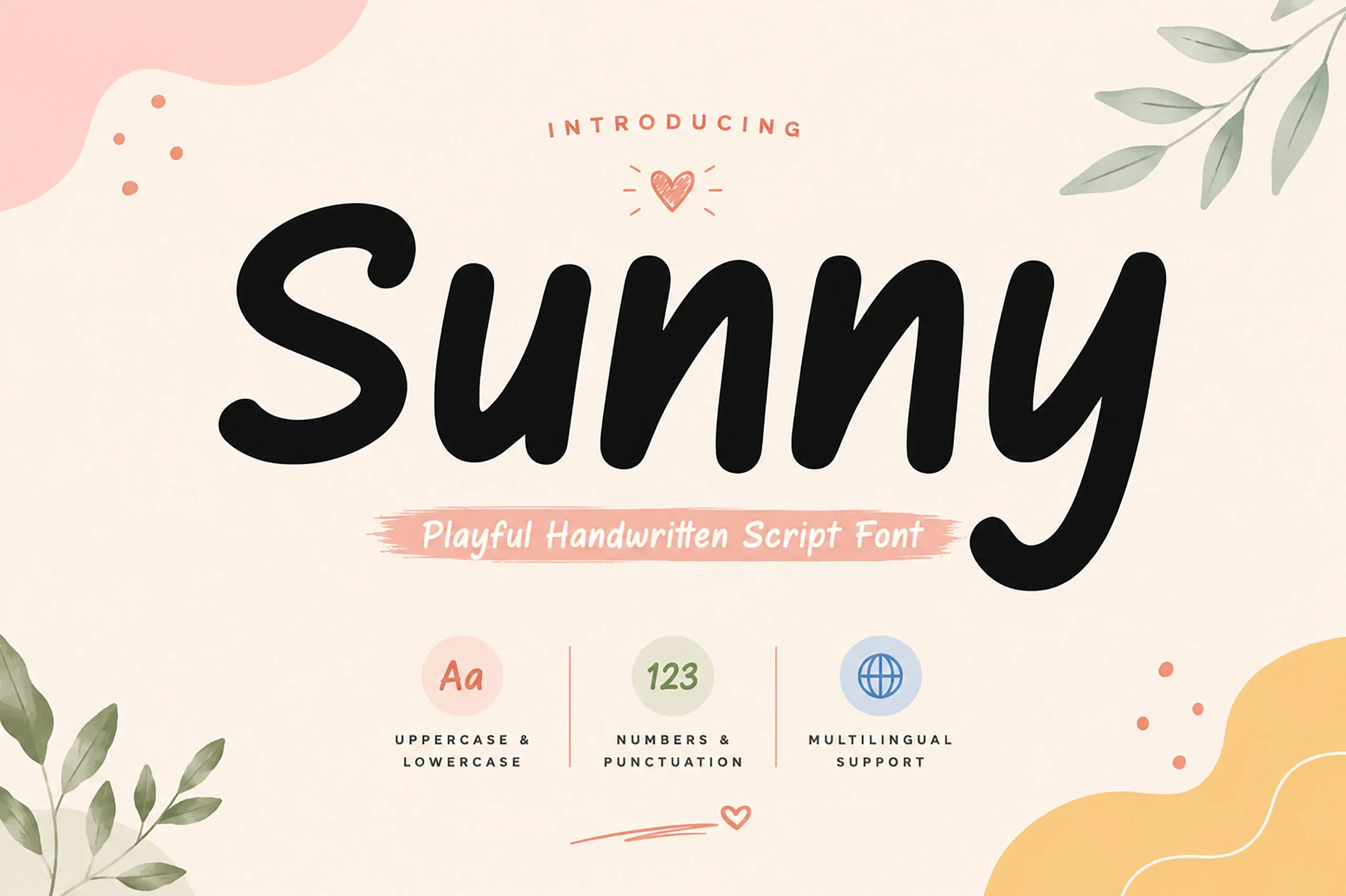
Best For: logos, packaging, social media graphics, quotes
Sunny Font has a thick, rounded script style with a casual bounce through the letters. The oversized curves, soft terminals, and connected handwritten rhythm keep it friendly without looking scratchy or fragile.
For Handwritten Script Fonts used in packaging, quotes, or social graphics, Sunny works best when the word count stays short and the spacing around it stays open. Its heavy strokes need contrast and clear title hierarchy so the cheerful shape does not turn crowded.
Coconut Bay Font
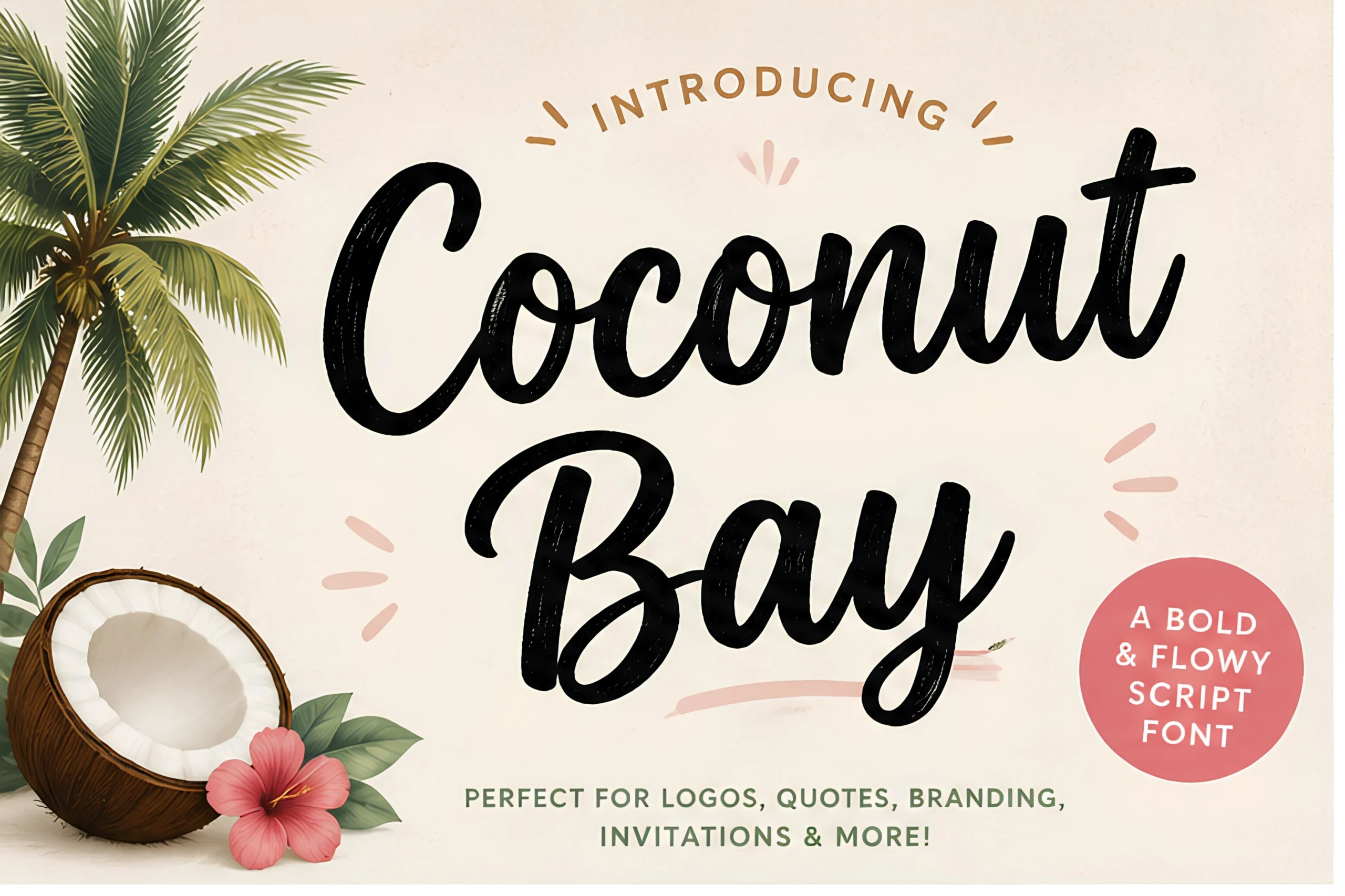
Best For: logos, quotes, branding, invitations
Coconut Bay Font uses a heavy handwritten brush style with rounded curves, thick downstrokes, and a slightly worn texture inside the letters. The connected forms feel relaxed and summery, while the oversized capitals give short titles a strong tropical sign-painting presence.
As part of Handwritten Script Fonts for logos, quotes, and invitation graphics, Coconut Bay works best with generous spacing around the wordmark and a simple supporting typeface. Its bold flow needs clear contrast; avoid tight layouts where the brush joins and descenders compete for space.
Roses Font
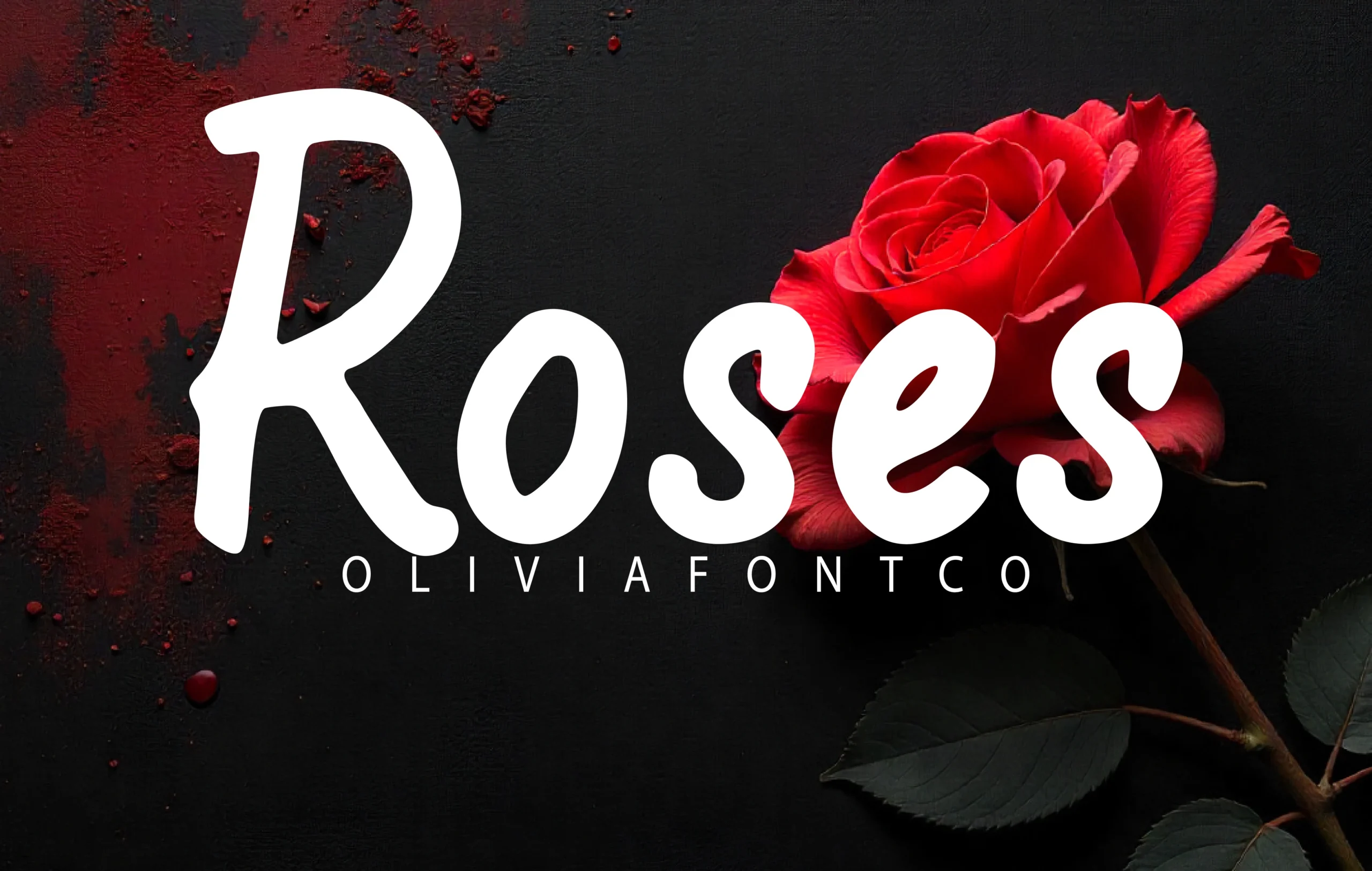
Best For: logos, invitations, romantic designs, bold designs
Roses Font carries a heavy handwritten script shape with a tall open R, rounded bowls, and thick smooth curves that feel confident rather than delicate. The soft swelling strokes give the word a romantic presence, while the blunt terminals keep it bold and easy to spot.
For Handwritten Script Fonts used in logos, invitations, or dramatic product labels, Roses works best with high contrast and short wording. Its weight is strong enough for display text, but tight spacing can flatten the counters, so give the letters enough room to hold their shape.
Daily Calm Font
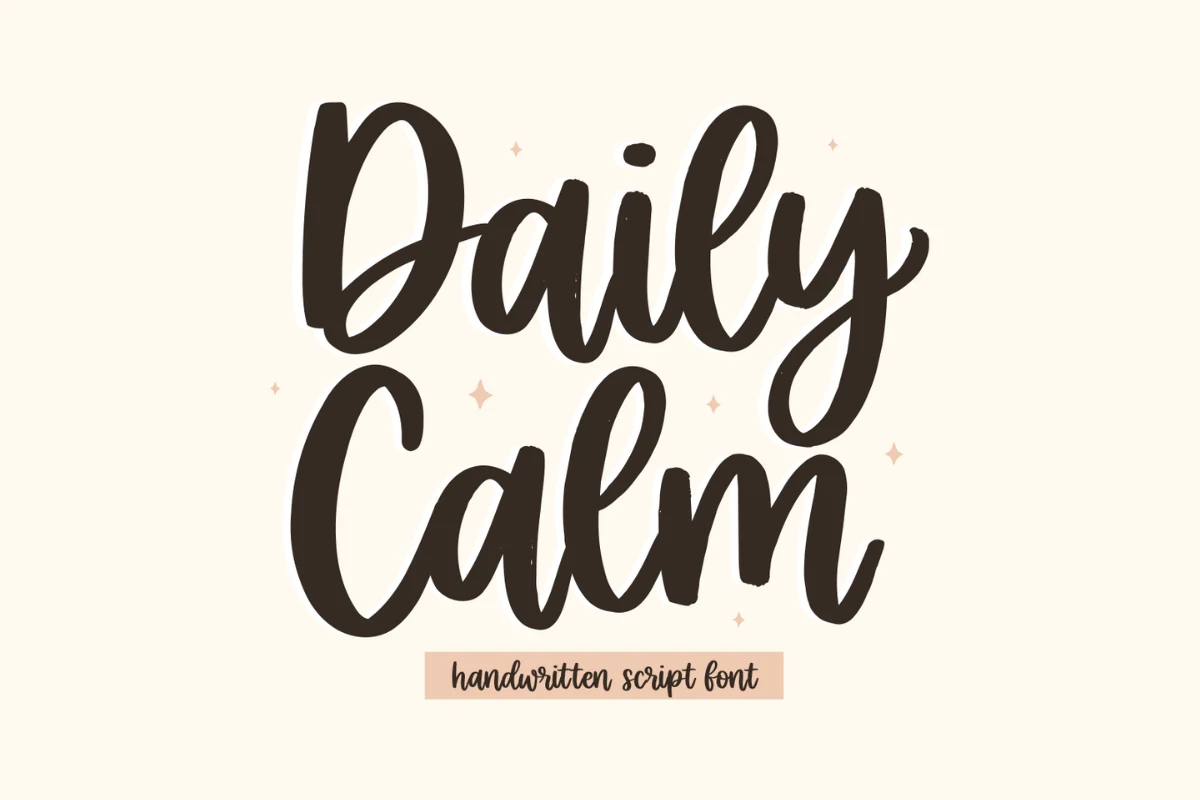
Best For: logos, social media graphics, quotes, casual designs
Daily Calm Font has a thick, rounded handwritten script style with soft curves, open counters, and a relaxed bounce between letters. The strokes feel smooth and friendly, while the tall capitals and looped descenders give short phrases a clear display rhythm.
For Handwritten Script Fonts used in quotes, social posts, or casual logo work, Daily Calm benefits from generous line spacing and clean contrast. Its heavy forms stay readable at display size, but compact layouts can make the rounded joins feel crowded.
Santiago Font
Best For: logos, product labels, social media graphics, wedding designs
Santiago has a broad brush-script build with a tall looped capital, rounded joins, and thick-to-thin pressure that stays soft rather than scratchy. The appeal of Handwritten Script Fonts is clear in its connected rhythm: the letters feel written in one motion, but the large bowls and open counters keep the word readable at display size.
Use it where the name or headline should carry the composition—logos, labels, wedding stationery, packaging marks, and social posts. Its long entry strokes and descending g need margin space, so avoid crowding it against borders; pair it with small, quiet serif or sans text to keep hierarchy clean.
Elegant & Romantic Handwritten Script Fonts
These graceful scripts lean on loops, smooth joins, and romantic details for wedding stationery, beauty branding, premium labels, and refined short headings.
Orchidia Font
Best For: logos, invitations, beauty branding, product labels
Orchidia Font has a polished handwritten flow with a dramatic looped capital O, tall upright stems, and smooth rounded exits. The letters connect cleanly, giving the wordmark a romantic rhythm without the scratchy texture of casual handwriting.
For Handwritten Script Fonts used in wedding invites, beauty packaging, or signature logos, Orchidia needs clear contrast and restrained tracking. Keep it to names, headings, and short phrases; the oversized initial loop and narrow joins lose definition when crowded.
Adinda Font
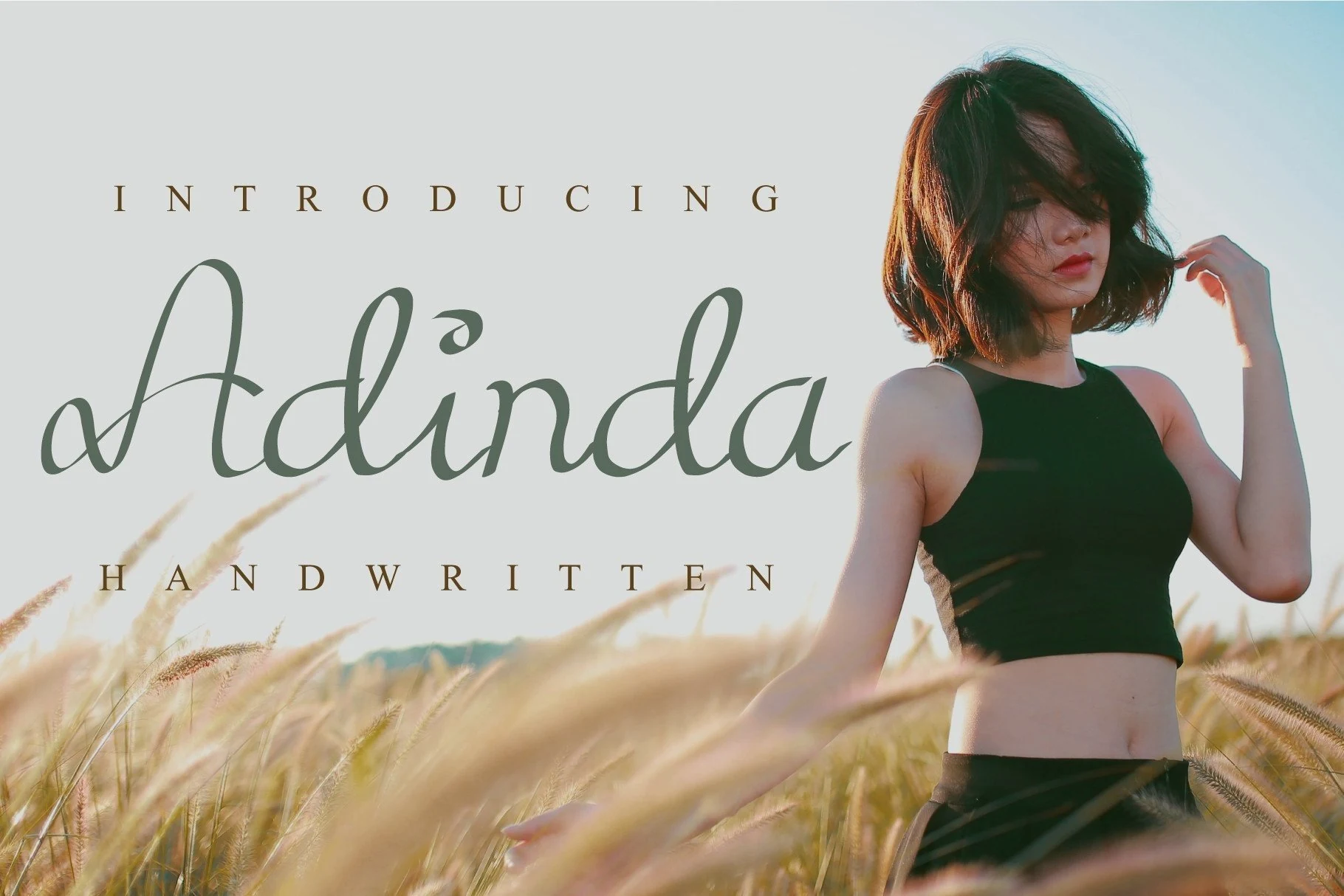
Best For: logos, personal branding, feminine designs, creative projects
Adinda Font has a slim handwritten script structure with tall loops, long entry strokes, and a calm, even rhythm through the connected lowercase. The letterforms feel light and graceful, with enough curve variation to avoid looking rigid or overly formal.
Handwritten Script Fonts like Adinda need open spacing and clear contrast, especially where the thin joins cross into tall ascenders. Its Photoshop and Silhouette design studio compatibility helps with craft-based layouts, but the lettering works best as a name, logo, or short display phrase rather than dense text.
Dear Love Font
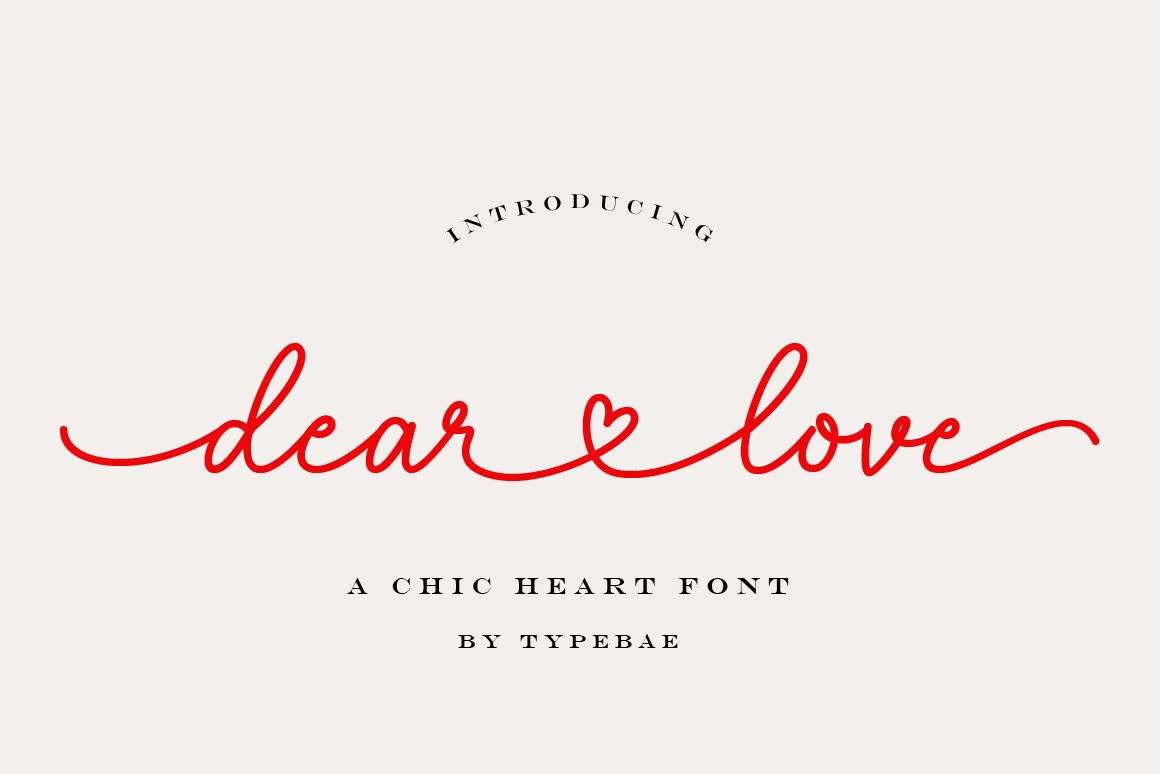
Best For: romantic designs, wedding designs, invitations, logos
Dear Love Font uses a fine handwritten line with long entry and exit tails, rounded loops, and a heart-shaped connection between the words. The lettering is light and romantic, with a continuous baseline that makes short phrases feel like one drawn gesture.
For Handwritten Script Fonts in wedding stationery, love-themed logos, or invitation headers, Dear Love needs open horizontal space so the swashes and heart detail stay readable. Pair it with quiet serif text and keep the main wording brief to avoid tangling the thin strokes.
Shina Qatline Font
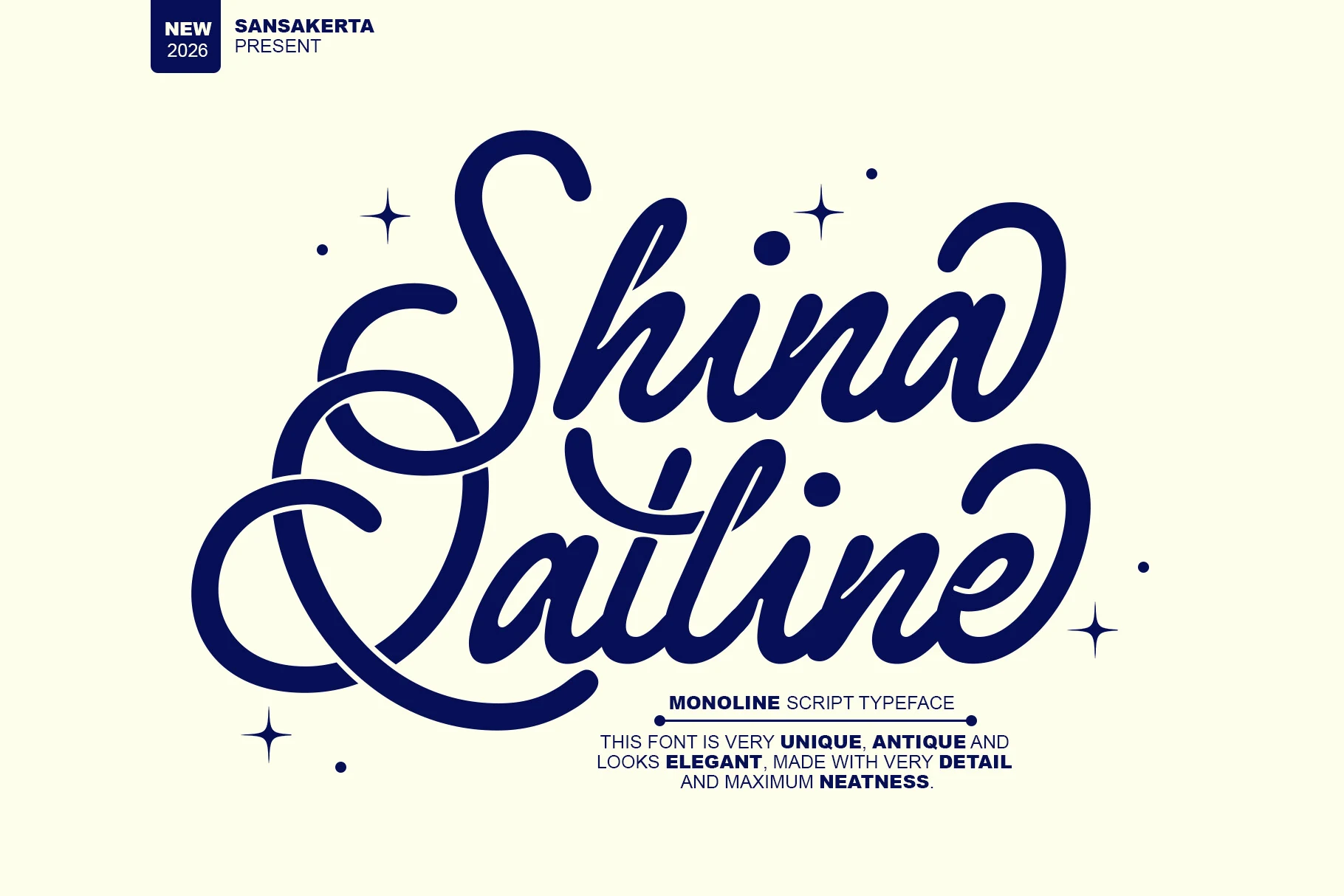
Best For: logos, branding, elegant designs, premium designs
Shina Qatline Font has a bold monoline script structure with oversized ornamental capitals, smooth connected lowercase, and sweeping loops that create a decorative vintage-modern rhythm. The stroke stays clean and even, so the lettering feels polished without relying on rough brush texture.
For Handwritten Script Fonts used in logos, premium branding, or decorative headers, Shina Qatline needs space around its large capitals and lower loops. Let the script carry the main title, then keep supporting text compact and simple so the flourishes do not compete with the layout.
Amerta Font
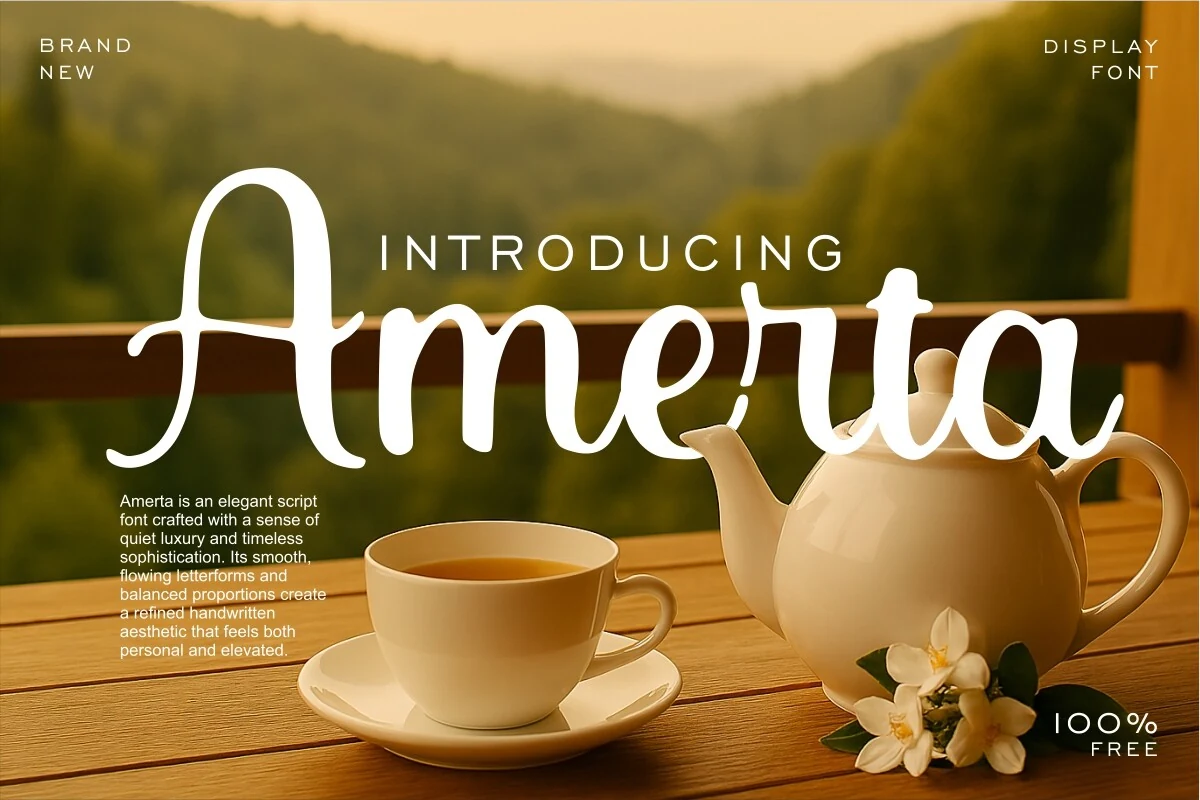
Best For: logos, branding, elegant designs, premium designs
Amerta Font has a smooth handwritten script build with a tall looped A, rounded lowercase arches, and soft terminal curves. The strokes feel full but not heavy, giving the wordmark a calm premium tone instead of a sharp calligraphic edge.
For Handwritten Script Fonts used in understated branding, logos, or display headers, Amerta works best with clear contrast and a restrained text hierarchy. Its broad curves need room across the line, while the clean connections make short names feel polished and readable.
Signature & Minimal Handwritten Script Fonts
These lighter autograph-style scripts use thin strokes, open spacing, and loose movement for personal branding, minimal logos, quotes, and elegant name marks.
Silent Autograph Font
Best For: logos, branding, invitations, personal branding
Silent Autograph Font has a quick signature-script rhythm with angled strokes, extended crossbars, and slightly irregular edges that keep the writing from looking too polished. The connected letters stay fairly open, which gives the wordmark a casual but controlled handwritten feel.
For Handwritten Script Fonts used in logos, invitations, or personal branding, Silent Autograph benefits from clean negative space and a restrained secondary typeface. Its thin joins and long horizontal strokes read best in short names or headline phrases, not dense multi-line copy.
Whiteside Font
Best For: logos, quotes, branding, handmade designs
Whiteside Font has a spare handwritten structure with thin, slightly broken strokes and a loose signature rhythm. The tall loops, sharp cross stroke, and uneven baseline give it a raw ink-on-paper texture rather than a polished calligraphy finish.
For Handwritten Script Fonts used in logos, quotes, or minimal branding, Whiteside needs strong contrast and quiet surrounding type. Its delicate texture works best at display size, where the irregular line quality stays visible without making the letters look weak.
Fantasia Font
Best For: logos, T-shirts, branding, creative projects
Fantasia Font has a fast modern script shape, with a tall looping F, long horizontal entry stroke, and narrow connected lowercase forms. The brush contrast shifts from thin hairlines to fuller downstrokes, so the wordmark feels energetic rather than soft or ornamental.
For Handwritten Script Fonts used in logos, T-shirt prints, and creative product branding, Fantasia needs strong background contrast and room for its swashes. Keep secondary text quiet and place the main word at display size so the thin joins do not break down.
Textured & Creative Handwritten Script Fonts
These expressive scripts bring brush texture, craft energy, and hand-drawn irregularity to posters, social posts, DIY graphics, stickers, and creative display layouts.
Mozzana Font
Best For: logos, quotes, stickers, creative projects
Mozzana Font has a loose connected script rhythm with wide curves, soft rounded terminals, and long sweeping strokes through the middle letters. The lowercase forms feel playful rather than formal, especially where the repeated z shapes create a relaxed bounce across the word.
For Handwritten Script Fonts used in craft graphics, quotes, or informal logos, Mozzana works best when the baseline movement is allowed to stay visible. Its Photoshop and Silhouette design studio compatibility supports print-and-cut workflows, but the lettering still needs strong contrast and short text to keep the joins readable.
Francisca Patrick Font
Best For: social media graphics, handmade designs, artistic designs, creative projects
Francisca Patrick Font has a bold dry-brush script feel, with sharp entry strokes, tall angular capitals, and rough ink texture through the heavier downstrokes. The letters lean into a quick signature rhythm, so it feels more handmade and expressive than polished calligraphy.
For Handwritten Script Fonts aimed at social media graphics or DIY-style creative projects, Francisca Patrick needs strong contrast and generous line spacing. Its long cross strokes and looped capitals work best as a name, quote, or short title; dense wording would bury the texture and make the joins harder to read.
Swept Away Duo Font
Best For: logos, social media graphics, display text, creative projects
Swept Away Duo Font shows a brushy handwritten script paired visually with a firmer all-caps marker style. The script has slanted movement, rounded joins, and uneven stroke edges, while the uppercase lettering adds a heavier hand-drawn counterweight for stacked title layouts.
For Handwritten Script Fonts used in logos, social graphics, or display phrases, Swept Away Duo works best when the script carries the main word and the block lettering handles support text. Keep contrast high and avoid tight line spacing so the organic texture stays clear.
Conclusion
Choose bold rounded scripts for high-impact display work, elegant or romantic scripts for refined brands and invitations, signature styles for personal marks, and textured scripts for expressive creative layouts.